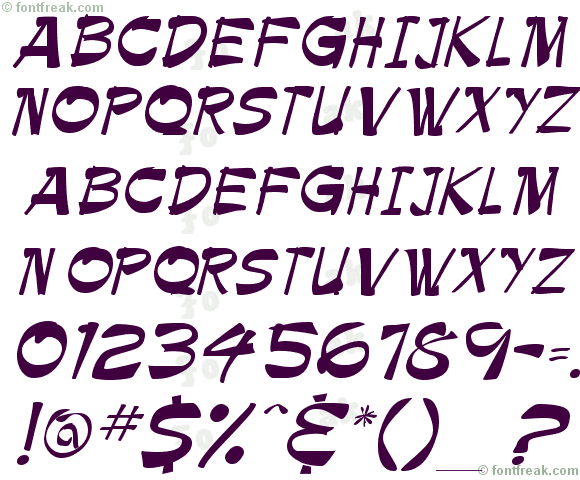
Paintbrush
About Paintbrush
The Paintbrush font by Alan Carr is a captivating handwritten typeface that exudes creativity and spontaneity, making it an excellent choice for various design projects. This font falls into the script category, characterized by its playful, brush-like strokes that evoke the feel of traditional painting. The strokes feature a medium weight with a moderate contrast, giving the typeface a dynamic presence while still maintaining legibility. The spacing is thoughtfully designed, ensuring that each letter flows seamlessly into the next, enhancing the overall aesthetic.
Paintbrush is particularly well-suited for a range of applications. It shines in wedding invitations, where its artistic flair can add a personal touch to the special day. Additionally, it works wonderfully for movie posters, capturing attention with its bold and expressive style. Restaurant menus can also benefit from this font, as it conveys a sense of warmth and creativity, appealing to diners seeking a unique dining experience. Content creators will find it advantageous for social media graphics, as its vibrant personality can elevate any post and engage audiences effectively.
What truly sets the Paintbrush font apart is its ability to blend artistic expression with functionality. It captures the essence of hand-drawn typography, making it a versatile choice that stands out in a crowded font marketplace. Whether you’re designing for print or digital media, this font offers a unique charm that can elevate any design.